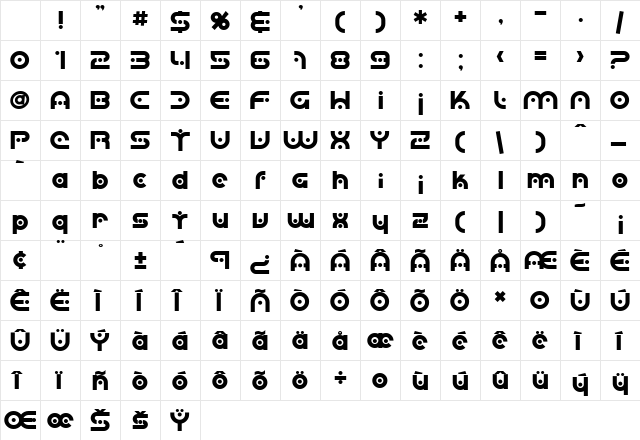
Complete SF Planetary Orbiter Bold glyph index. Displaying only characters natively supported by SF Planetary Orbiter Bold font.
SF Planetary Orbiter is a composed and adaptable typeface that performs quietly and consistently across a wide range of design contexts. Its bold stroke weight gives it real presence on the page.